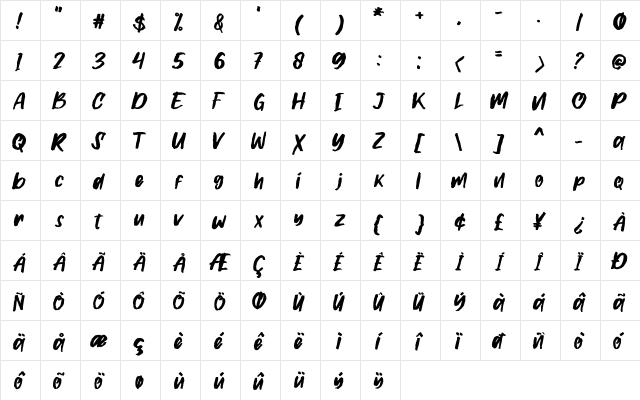
Gilmoore Rough Regular
| Foundry | Kong font |
| Designer | Kong font |
Design Context for Gilmoore Rough Typeface
Gilmoore Rough embraces imperfection — its rough, textured character adds raw authenticity to designs that want to feel lived-in and unconventional.
Suited to punk-influenced zines, underground music branding, streetwear, and raw, anti-corporate design.